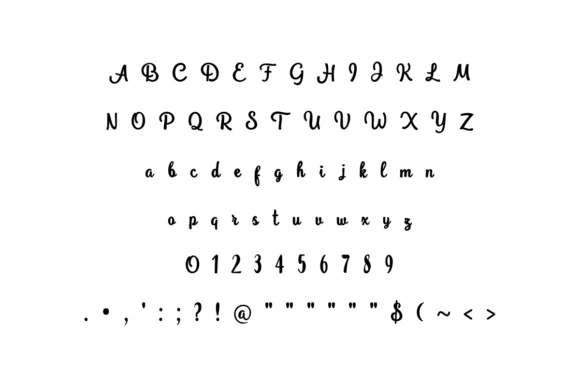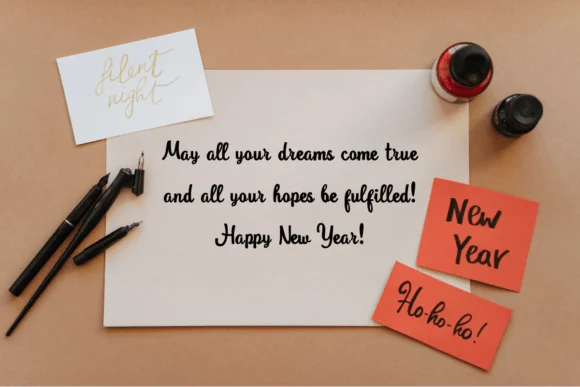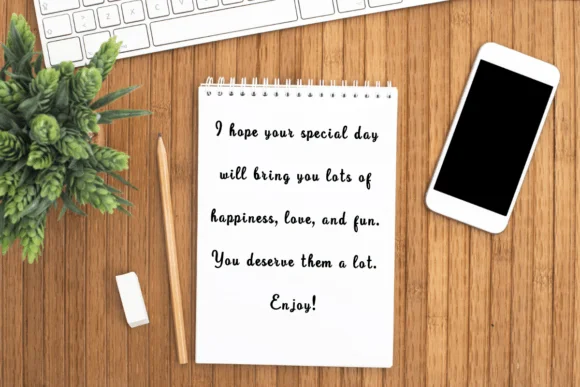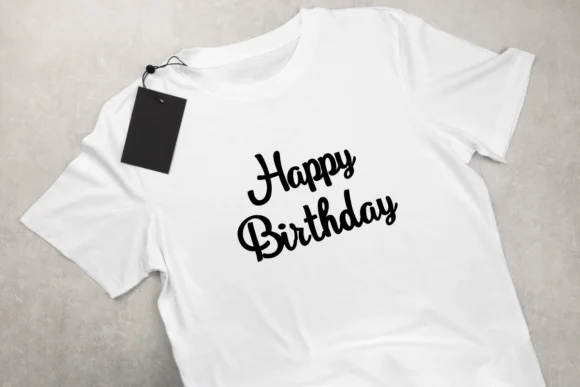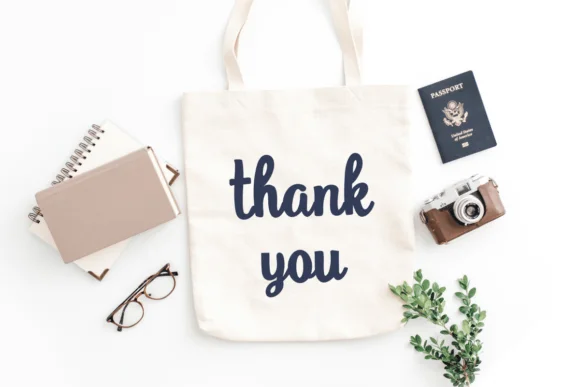
Merry Christmas Font
This cheerful font is perfect for Christmas greeting cards, holiday party banners, festive seasonal advertisements, merry Christmas wishes, joyful holiday decorations, Christmas celebration invitations, happy holiday messaging, festive social media posts, cheerful Christmas packaging, and uplifting seasonal communications.
Merry Christmas Font is exciting because it embodies the pure joy and infectious happiness that defines the Christmas spirit, featuring exuberant letterforms that practically bounce off the page with celebratory energy and festive cheer. The font showcases playful characters with uplifting curves and delightful details that mirror the excitement of children on Christmas morning and the warm laughter shared during holiday gatherings. Each letter radiates optimism and merriment with cheerful flourishes and spirited proportions that make every word feel like a celebration, capturing the essence of "Merry Christmas" greetings exchanged between loved ones. The design perfectly balances joyful exuberance with readable elegance, creating typography that spreads Christmas happiness and infectious holiday spirit wherever it appears, making recipients smile before they even finish reading the message.
The Merry Christmas Font family includes celebratory style variations: Regular, Bold, Light, Festive, and Jolly versions. The collection features special merry elements including joy-inspired flourishes, celebration accents, happy star details, and cheerful ornamental touches. Additional components include merry borders, festive frames, joyful decorations, and uplifting ornamental designs that enhance the font's Christmas merriment appeal and create cohesive happy holiday themes.
Event planners and cheerful brands will find Merry Christmas Font to be an invaluable tool for creating uplifting holiday communications that spread joy and positive Christmas energy. This delightfully crafted font transforms ordinary Christmas messages into merry expressions that lift spirits and create the infectious happiness that makes Christmas the most wonderful time of the year.
The typeface includes comprehensive character support with joyful styling that maintains excellent readability while conveying the boundless happiness and celebratory spirit of merry Christmas celebrations. The font's cheerful design ensures delightful results across both intimate family projects and large-scale festive campaigns.
Perfect for families, celebration planners, joyful brands, and anyone spreading Christmas cheer, this font delivers infectious visual impact that communicates pure happiness, boundless joy, and the merry spirit that makes Christmas celebrations so wonderfully uplifting and memorably cheerful for everyone involved.